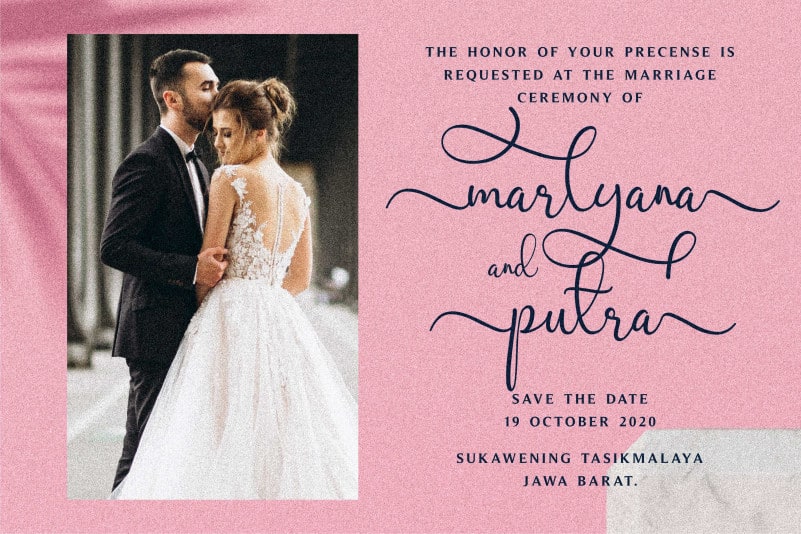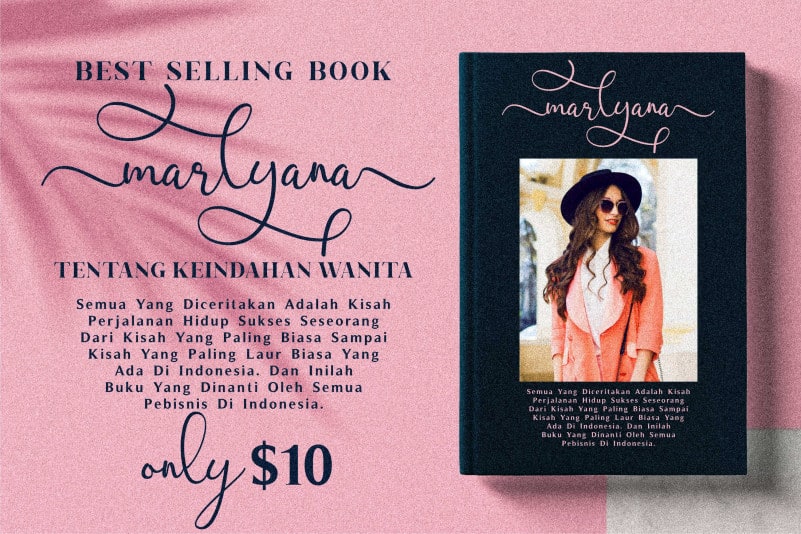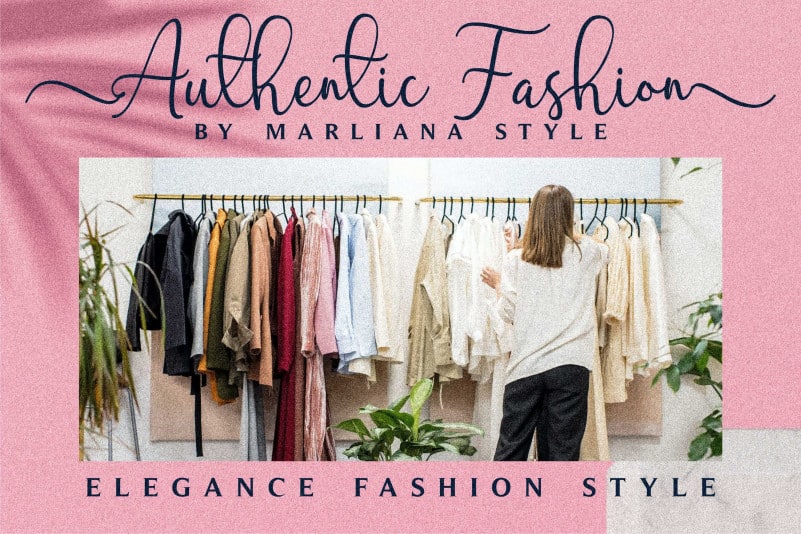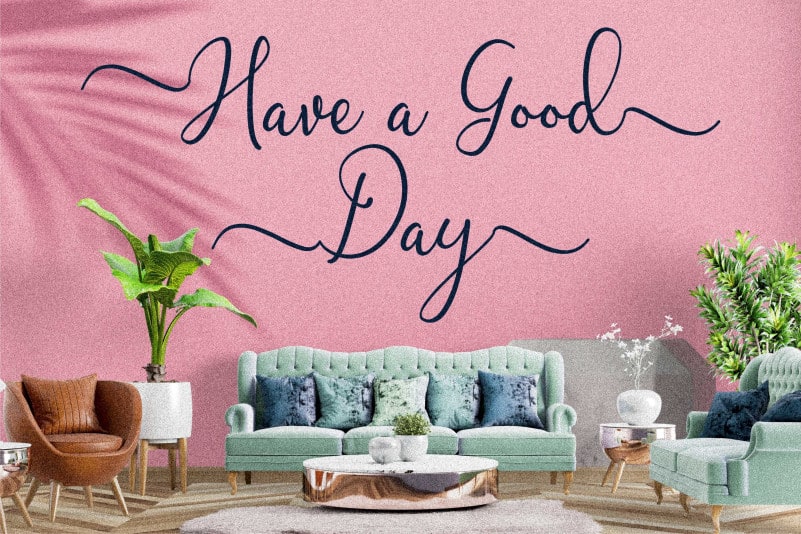
Marlyana Calligraphy Font is a superb handwritten font. Use this font for any crafting project that requires a personalized look!
This font is PUA encoded which means you can access all of the glyphs and swashes with ease!